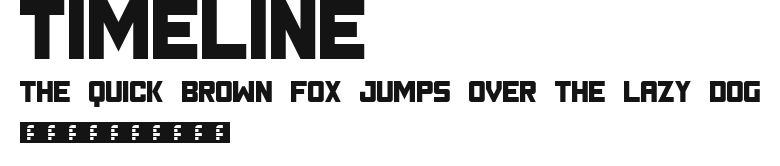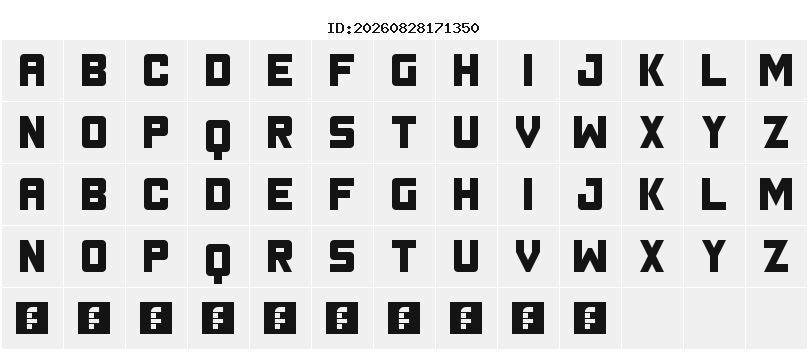
Timeline Preview
• Font Name: Timeline
• Font ID: FontStruct Timeline
• Full Font Name: Timeline Regular
• PostScript Name: Timeline
• Character Count: 62
• Copyright: Copyright GeronimoFonts 2014 ‚ÄúTimeline‚Äù is based on ‚ÄúLAND+MINE‚Äù by ‚ÄúGeronimoFonts‚Äù (http://fontstruct.com/fontstructors/geronimofonts)
• Designer: GeronimoFonts
• Description: ‚ÄúTimeline‚Äù was built with FontStruct ‚ÄúTimeline‚Äù is based on ‚ÄúLAND+MINE‚Äù by ‚ÄúGeronimoFonts‚Äù (http://fontstruct.com/fontstructors/geronimofonts)
About Timeline.ttf
Timeline.ttf is a modern, elegant sans-serif font designed for ultimate readability and visual harmony. Perfect for branding, headlines, web design, and print materials.